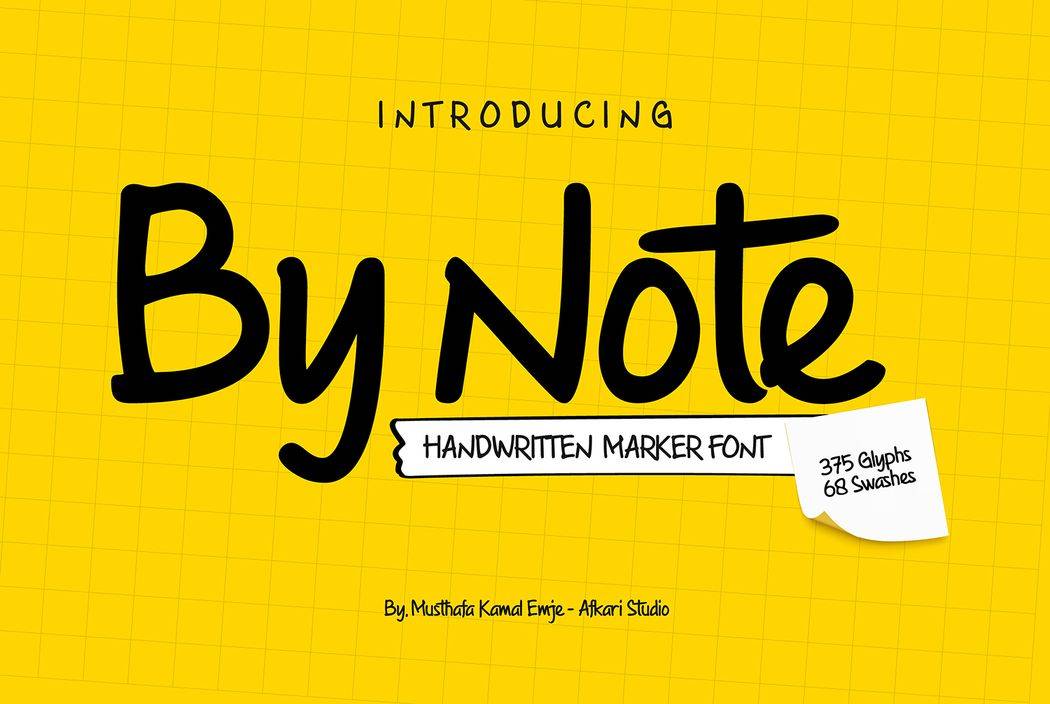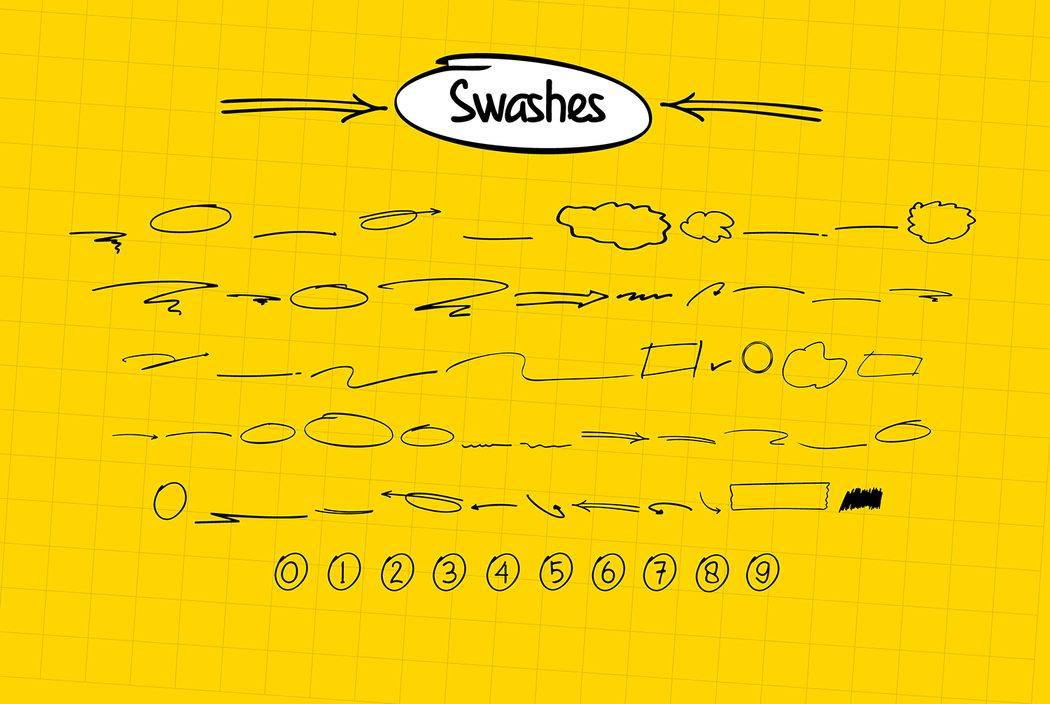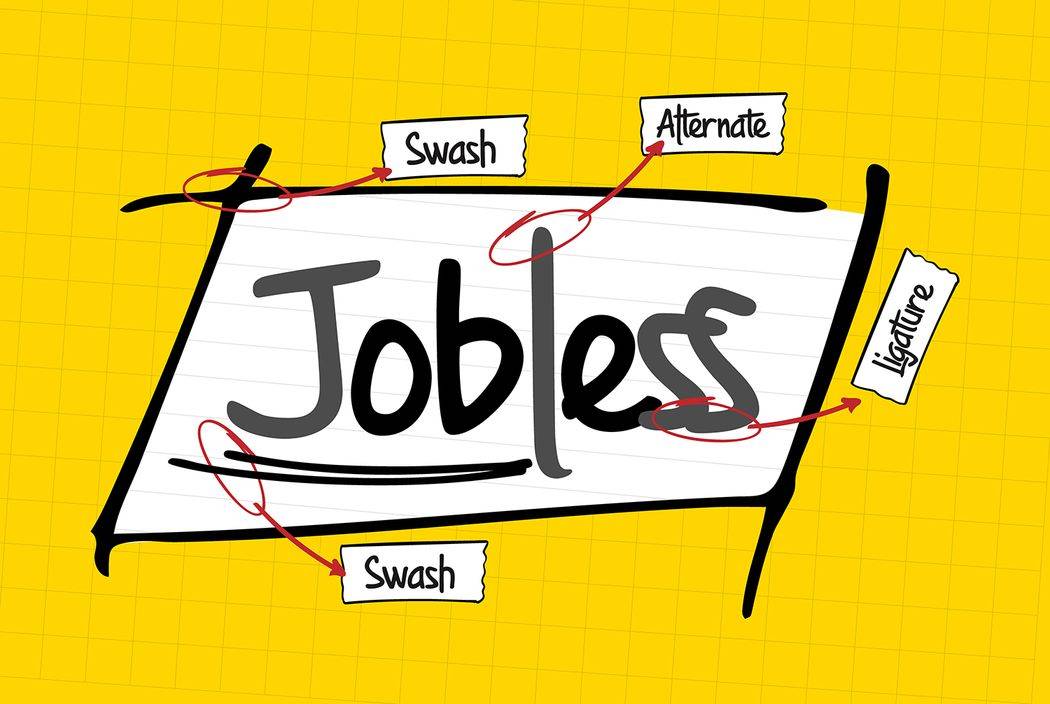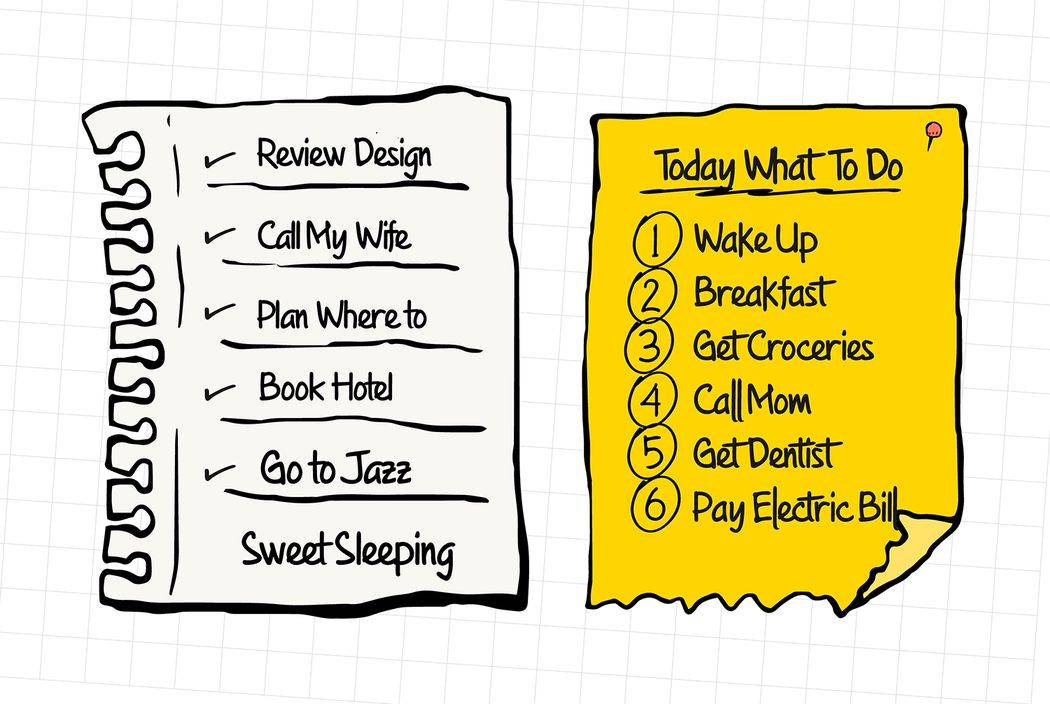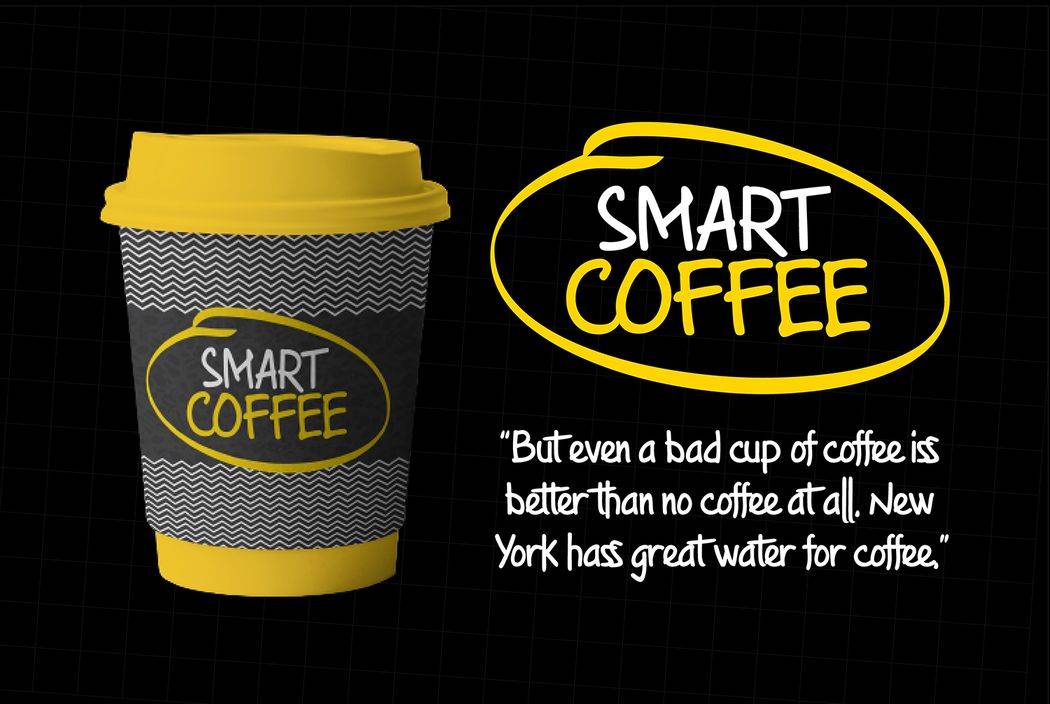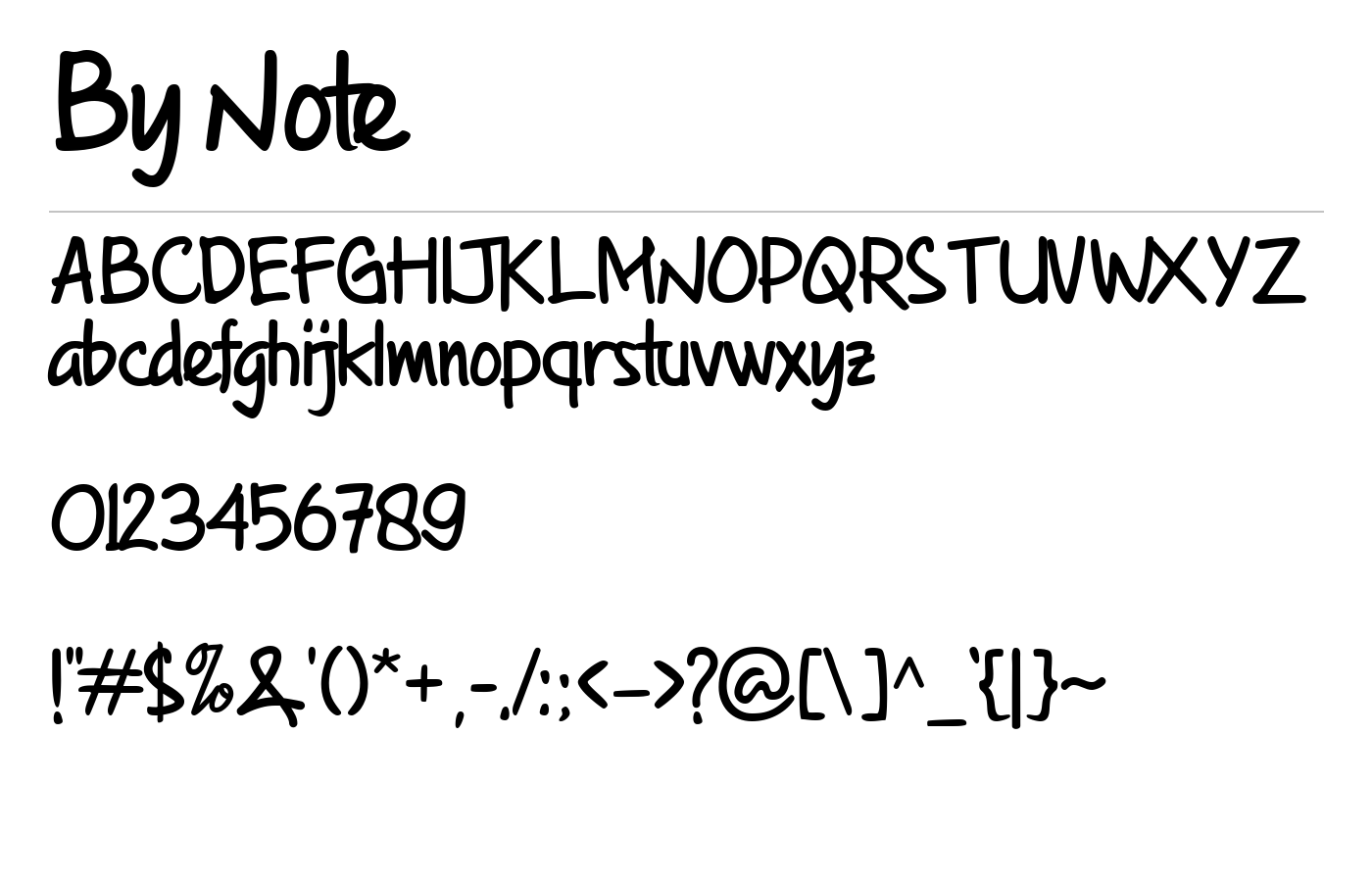
By Note is a playful, handwritten sans serif font that feels casual and friendly with its irregular strokes and informal letterforms. Its medium weight and open spacing give it a relaxed, approachable vibe, making it ideal for creative projects, informal branding, and personal communications where a warm and human touch is desired. This font works well in headlines, invitations, and designs seeking a lighthearted, personal feel.
By Note Font
| Designer | Musthafa Kamal Emje - Afkari Studio |